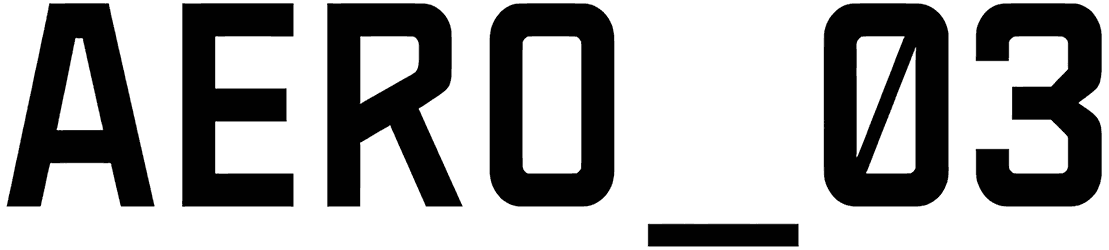
Aero 03 Font
If you are looking for a sans-serif font that comes with geometrical and highly legible characters, then Aero 03 really deserves to be on your radar. This square font has very captivating letters, and due to its clean shapes, it can lead to a sense of modernity, uniqueness, professionalism, or vivacity.
We would like to advise you to include this masterpiece in your editorial projects the such as flyers, billboards, street posters, stickers, or product packaging.
Introducing an airplane markage inspired Font : Aero_03
“MAN’S OLDEST DREAM IS TO FLY”
The idea of rising into the air is as old as humanity. The most famous myth is that of Icarus who flew, with his wings of wax and feathers. But when he got too close to the sun, his wings melted and he fell to his death. The lesson to be learned is not that flying leads to death, but to be very cautious in order to go further or higher. You should learn to listen to the advice of your forefathers and accept your limits.**********************************